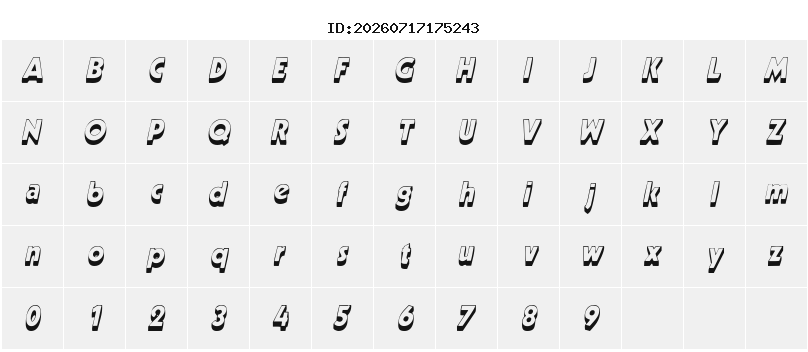
• Font Name: BeurketShadowSSK
• Full Font Name: BeurketShadowSSK Italic
About BeurketShadowSSK.ttf
BeurketShadowSSK.ttf is a modern, elegant sans-serif font designed for ultimate readability and visual harmony. Perfect for branding, headlines, web design, and print materials.